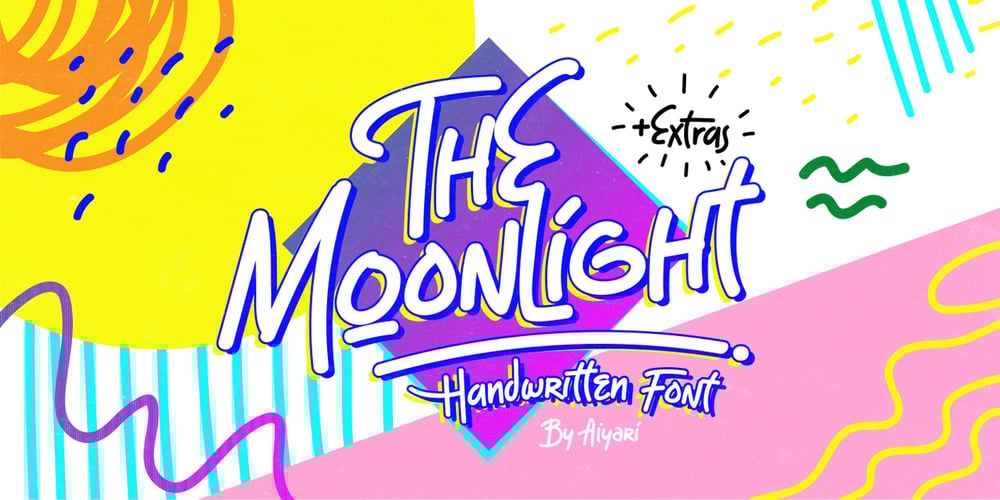
The Moonlight Font Family was designed by Ricky Rinaldi and published by Aiyari. The Moonlight contains 2 styles and family package options. Introducing a new handwritten font called The Moonlight. Inspired by ball pen handwritten combine with retro (80-90’s) nuance. The typeface comes with open type features such as stylistic alternates, stylistic sets, & ligatures and also support with the PUA encoded to help you make a stunning design. The Moonlight is perfect for headings, logo type, quotes, apparel design, invitations, flyer, poster, greeting cards, product packaging, book cover, printed quotes, cover album, movie, etc.